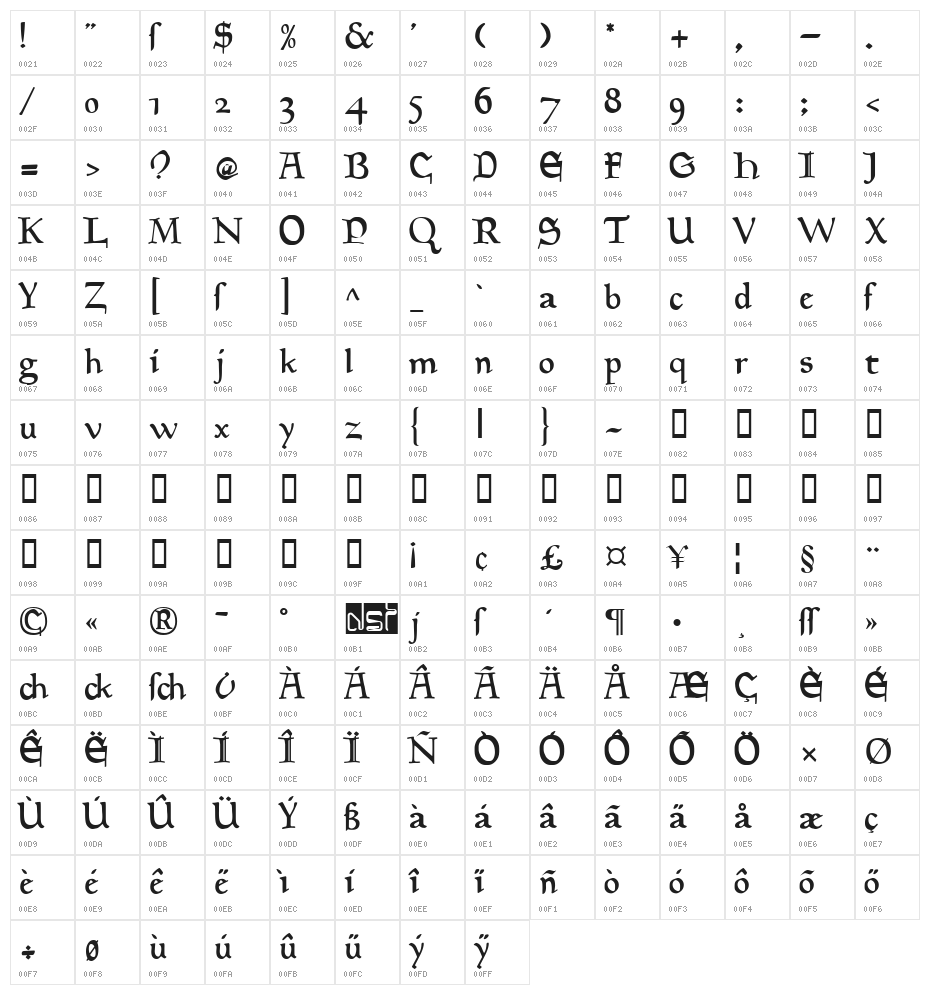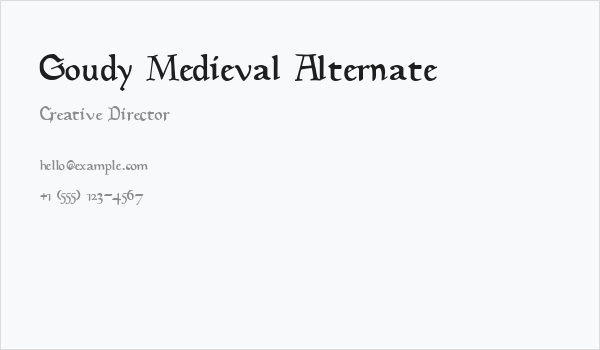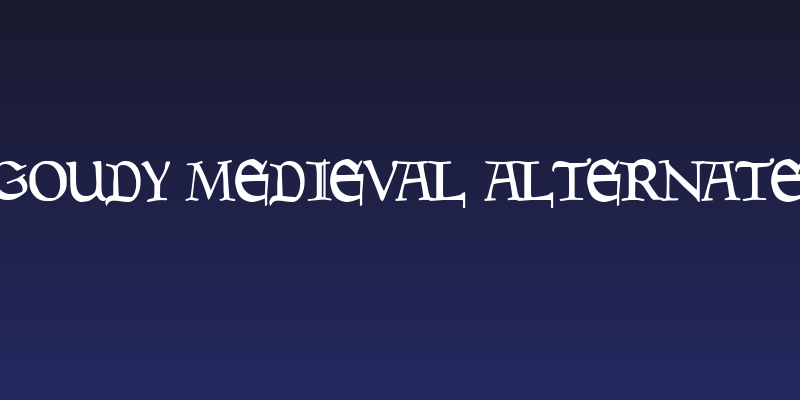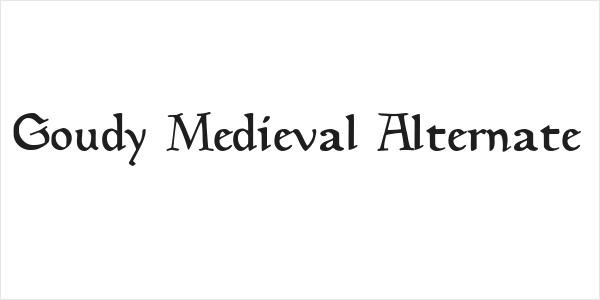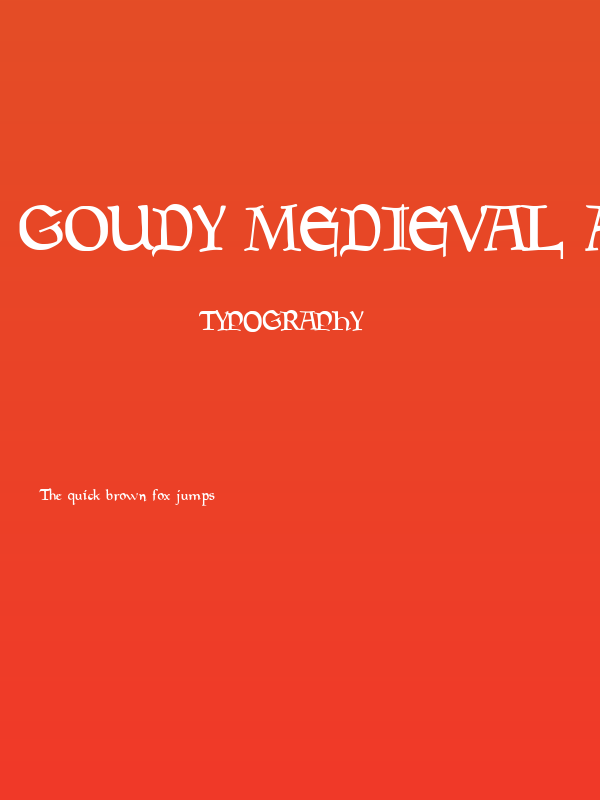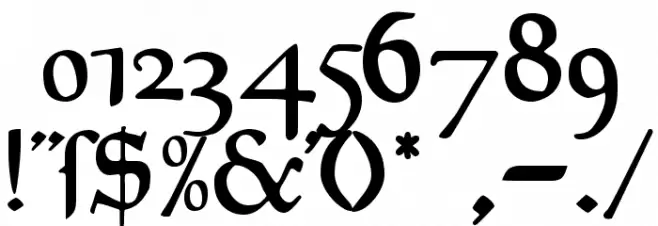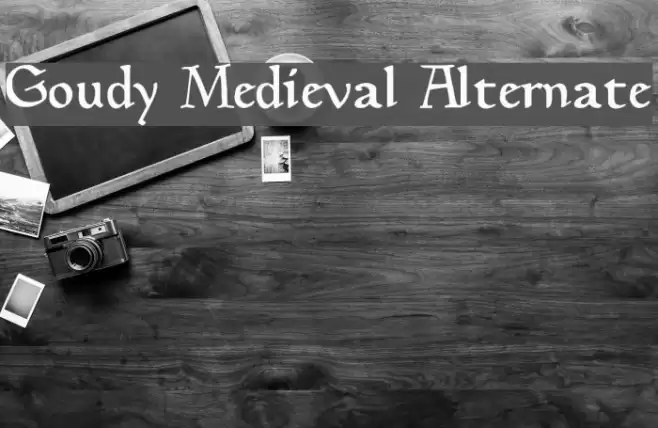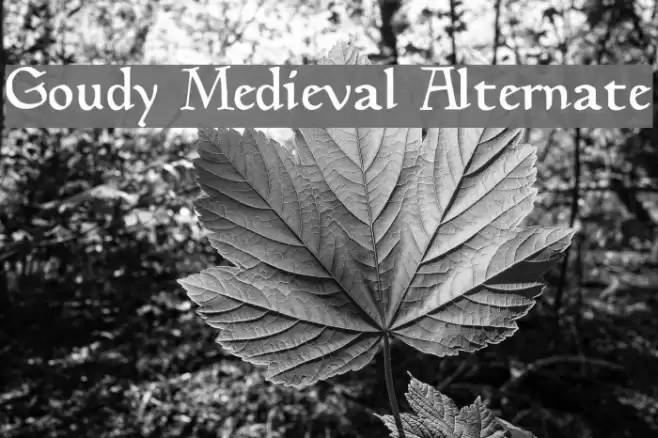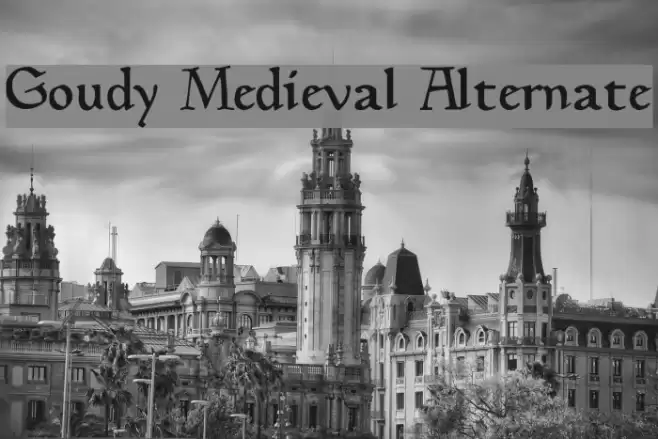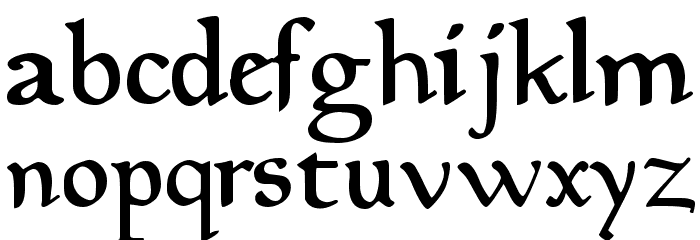
Goudy Medieval Alternate Font
Goudy Medieval Alternate Description
This font features a distinct medieval-inspired design with a unique blend of traditional and decorative elements. The uppercase letters exhibit a strong, angular structure with pronounced serifs, giving them a historic and authoritative appearance. The lowercase letters maintain a consistent style, with rounded forms and subtle flourishes that add a touch of elegance. The numerals are bold and clear, ensuring readability while maintaining the overall aesthetic. Special characters are thoughtfully designed to complement the letterforms, making this font versatile for various applications. The overall style is reminiscent of old manuscripts, offering a sense of nostalgia and sophistication.
| Overall Style | Vintage |
| Proposed Projects | Ideal for historical documents, fantasy book covers, themed event invitations, and branding for vintage or artisanal products. |